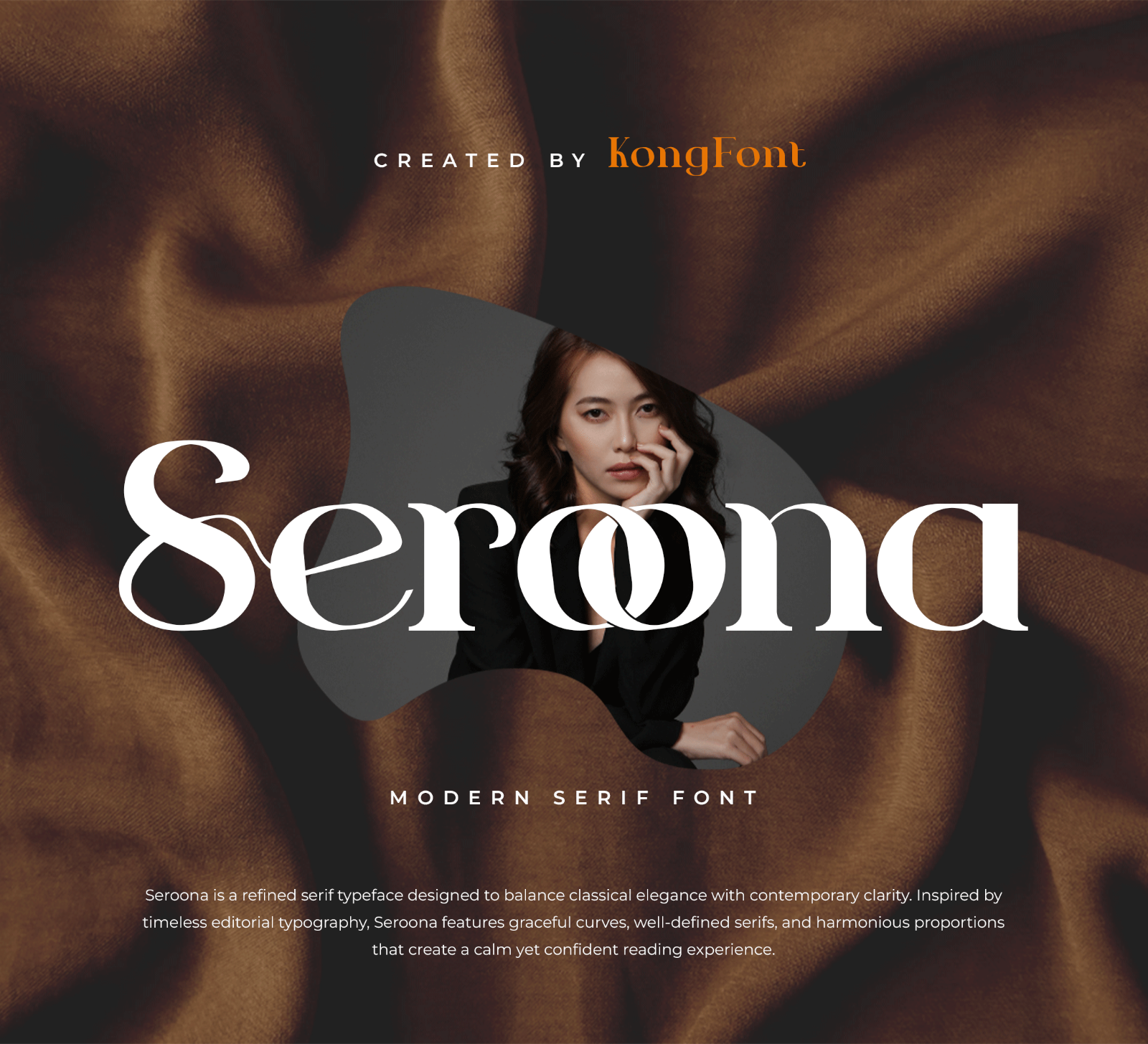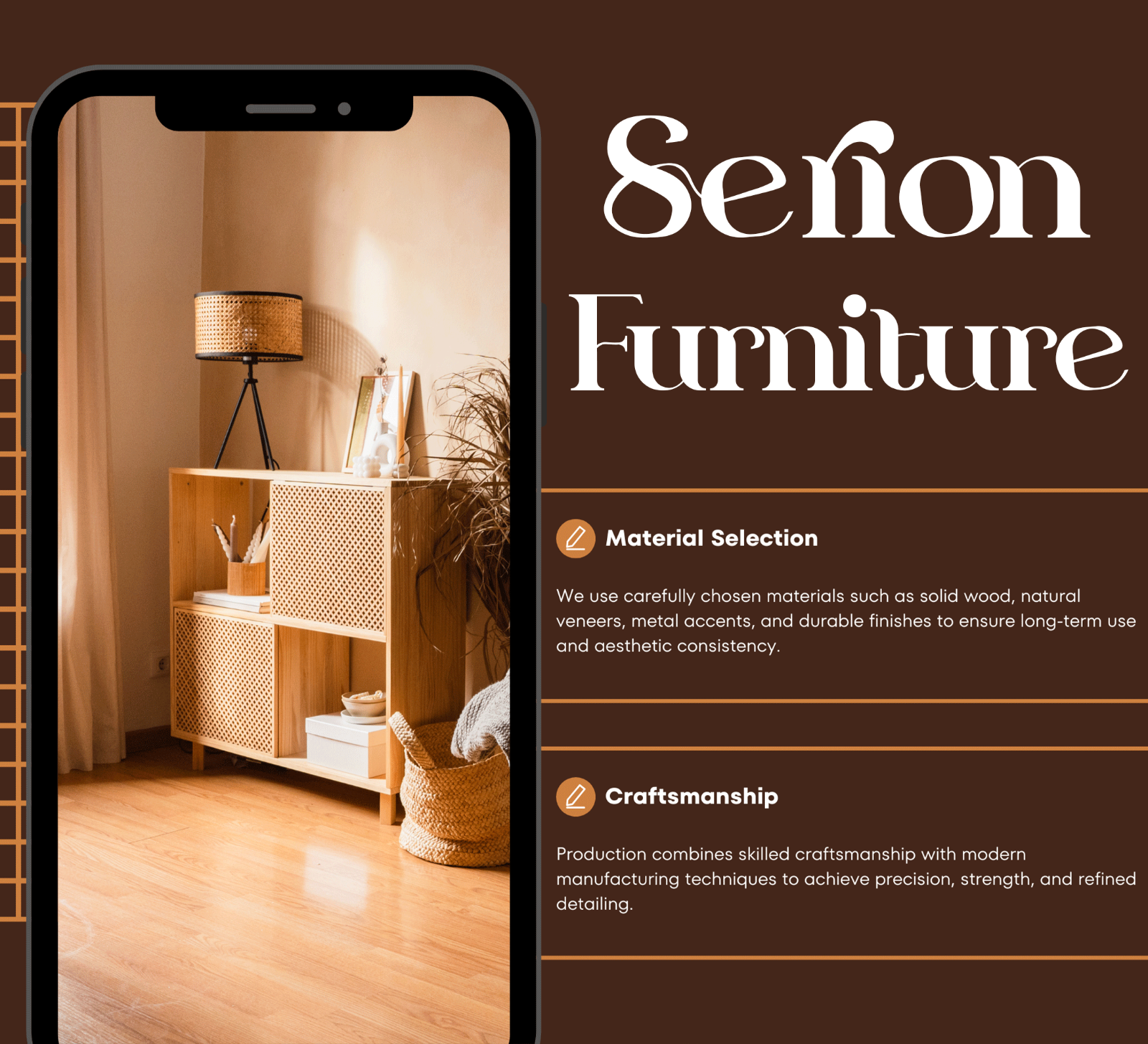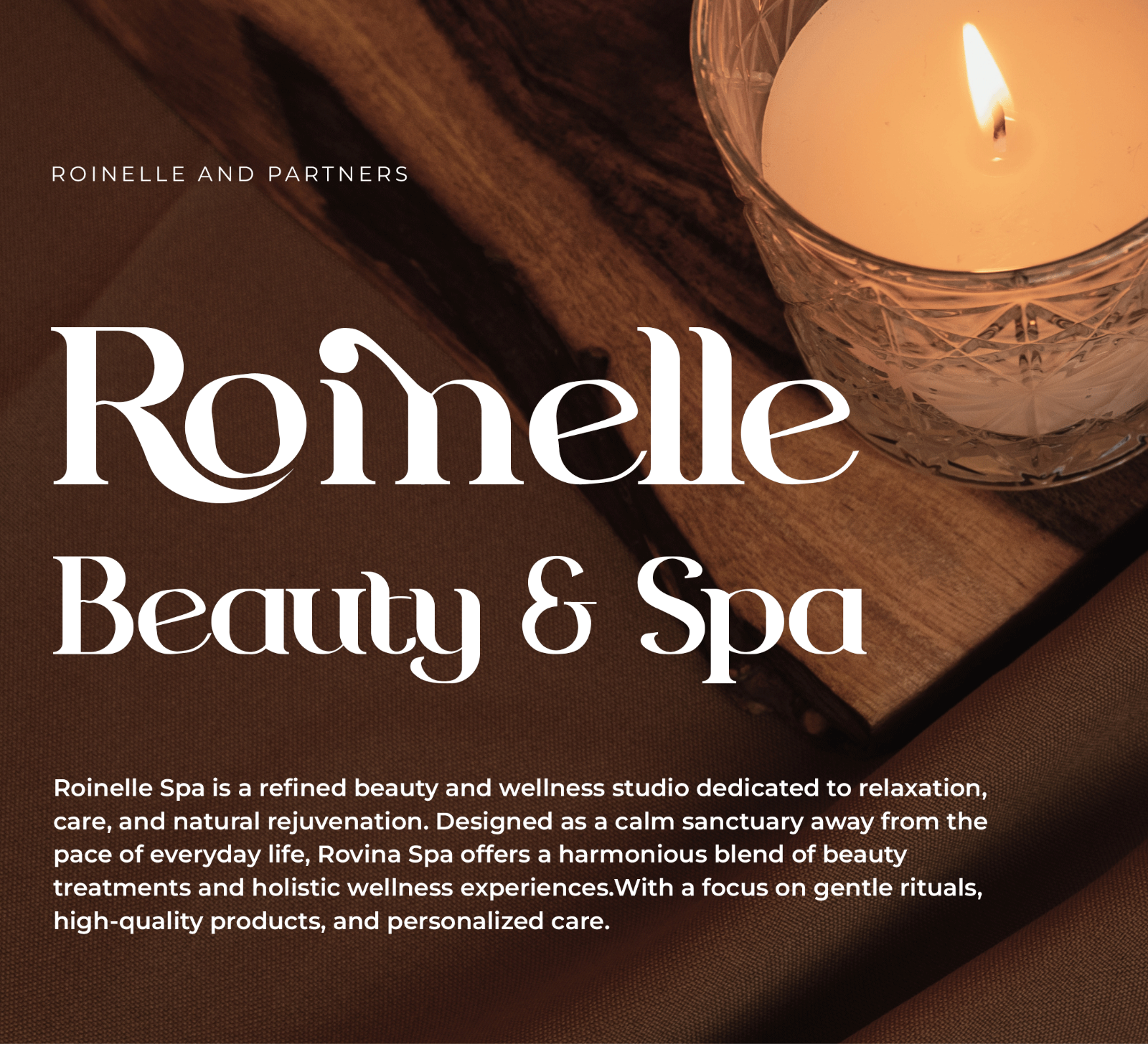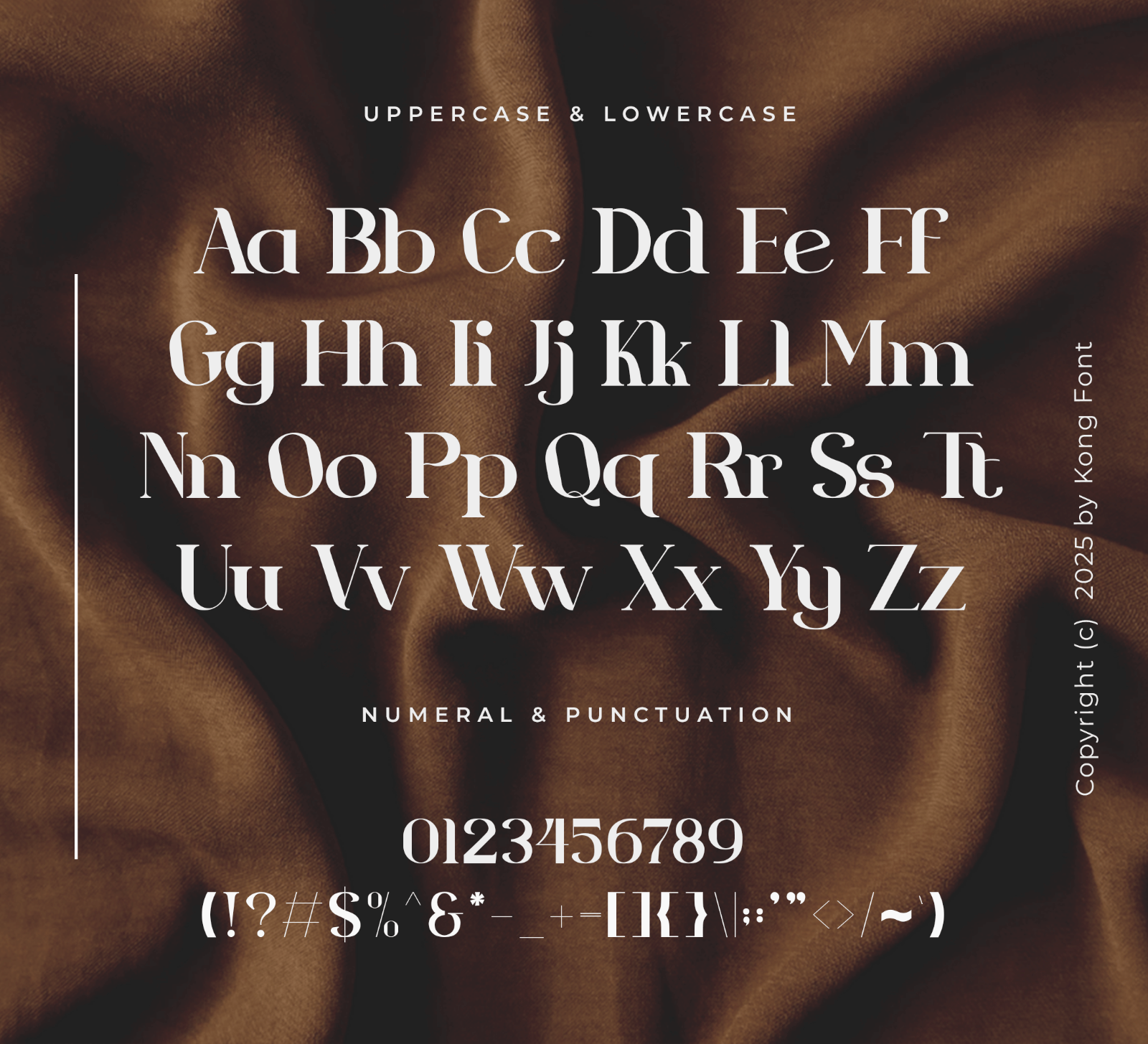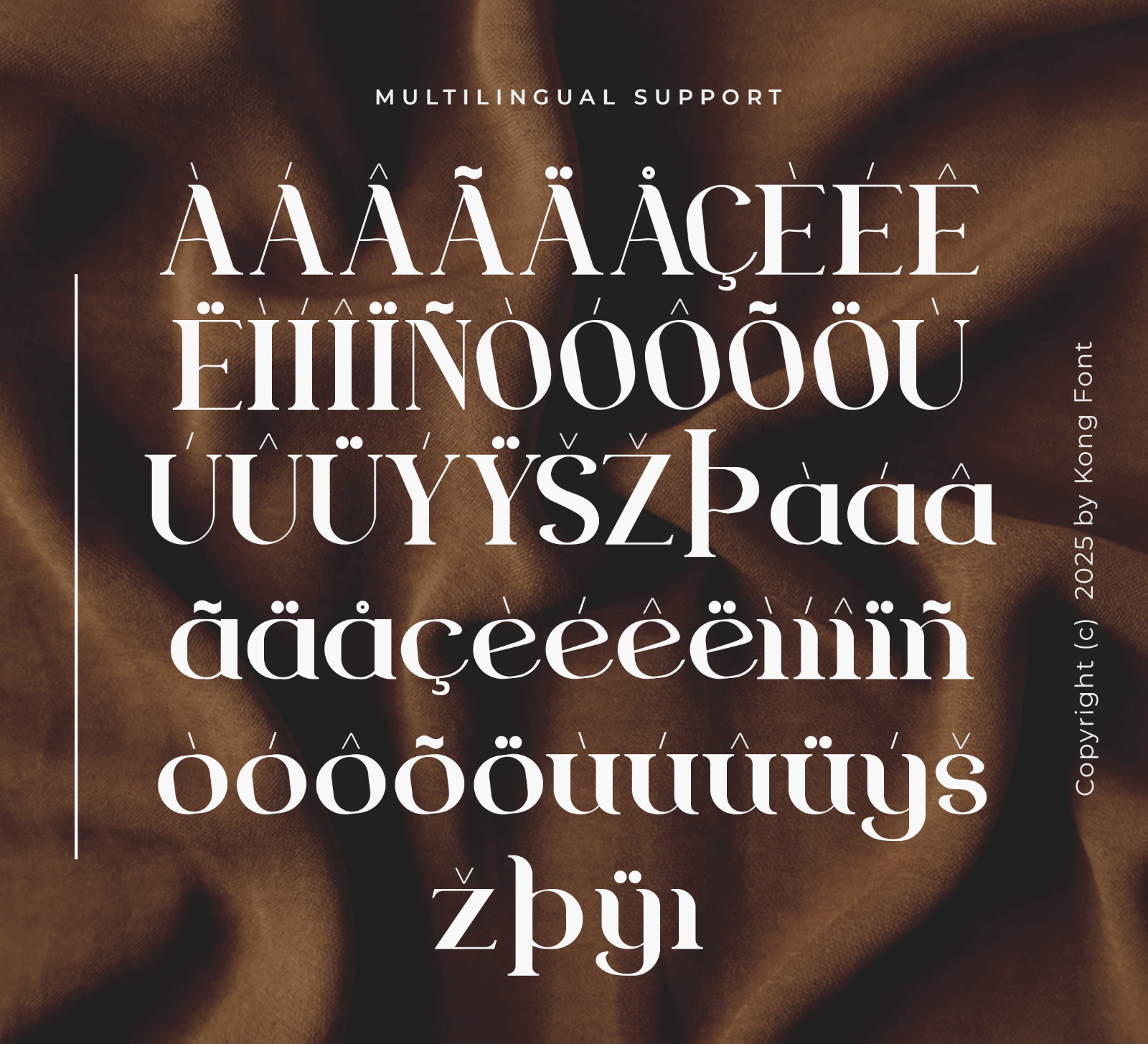
Seroona is a modern serif font with bold letterforms, elegant curves, and a unique classy style. Its clean and refined appearance makes it perfect for branding, headlines, and creative designs that need a sophisticated and memorable look.
• Branding
• Logos
• Business cards
• Blog headers
• Quotes
• Editorial titles
• Packaging
• Creative typography